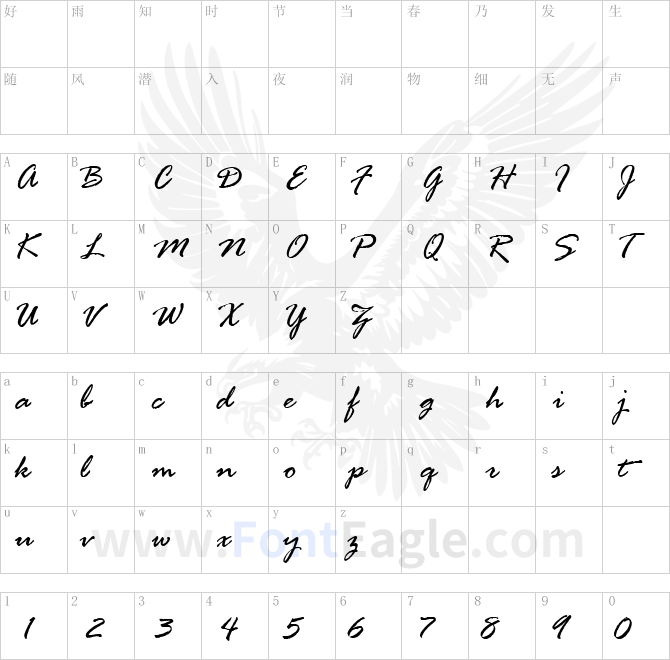
QK-Sonja is a great font, widely used in graphic design, single-page menu design, poster design and other fields, and is deeply loved by designers.QK-Sonja download.